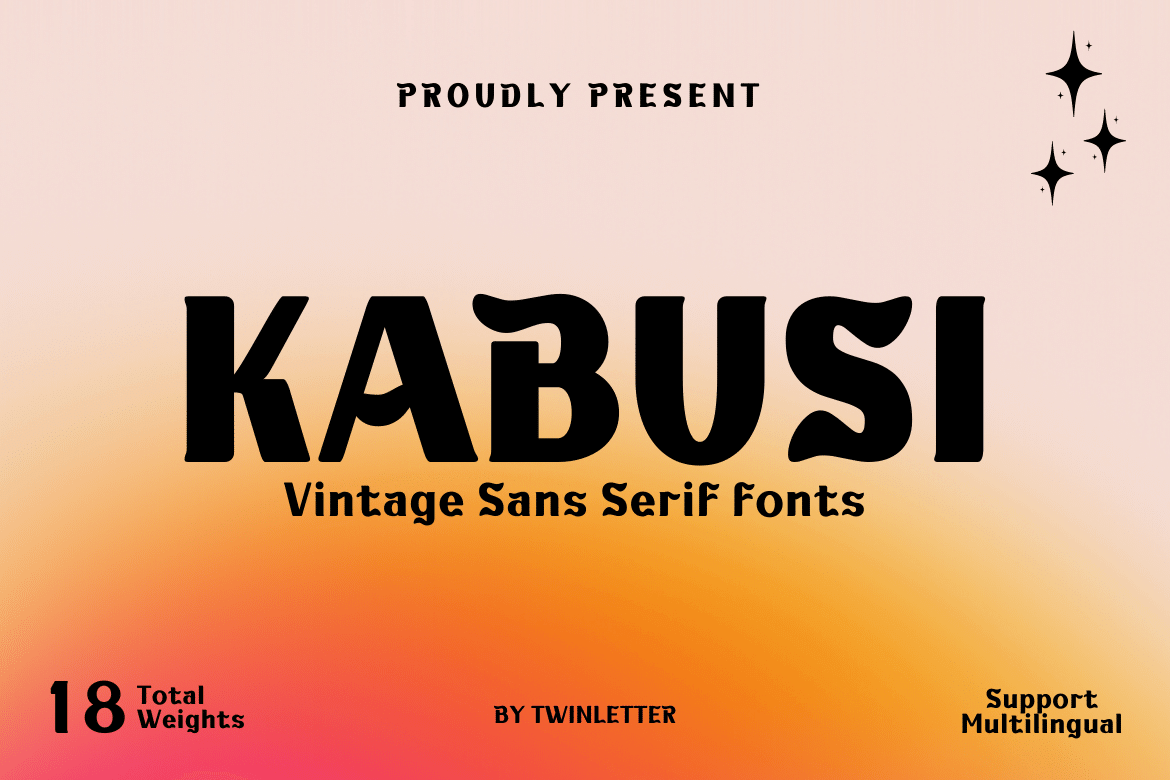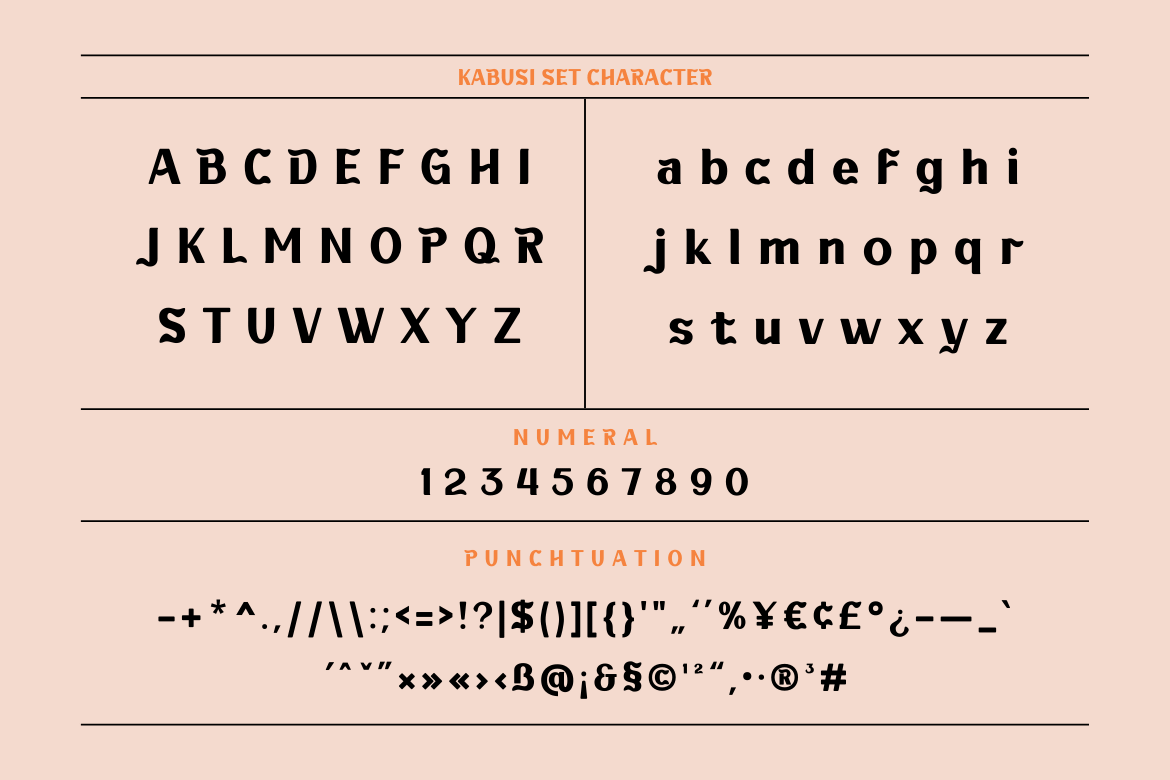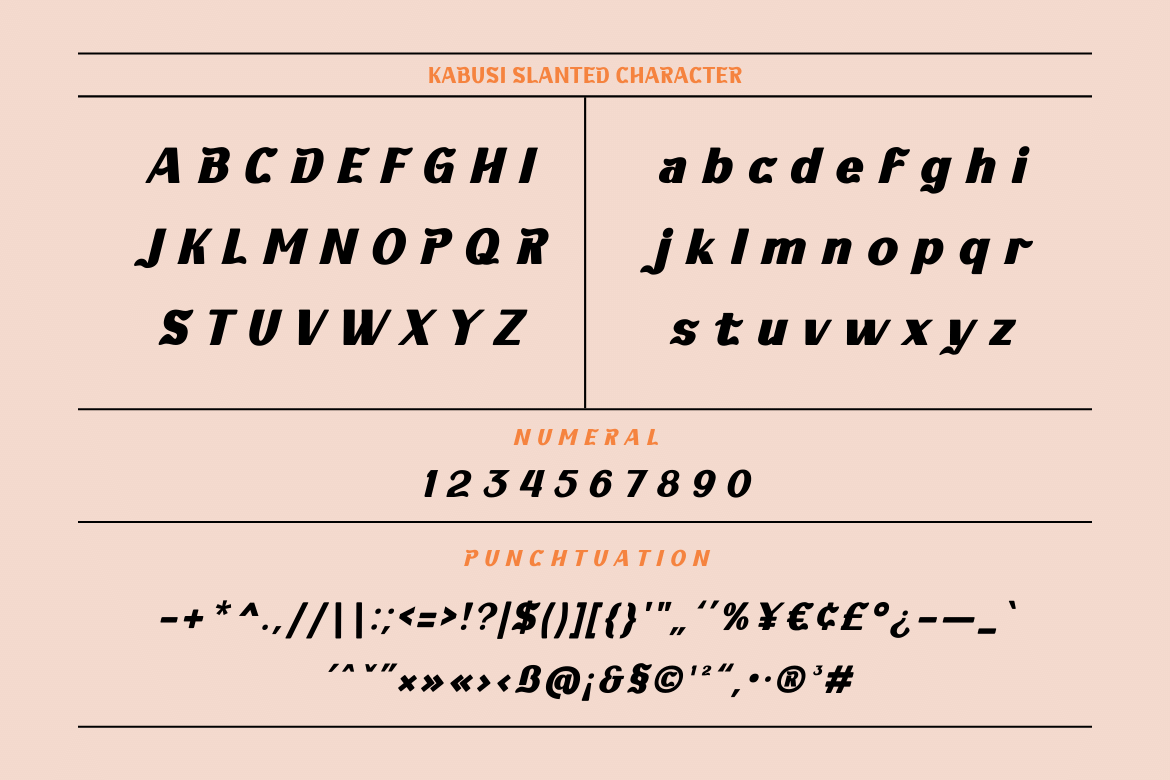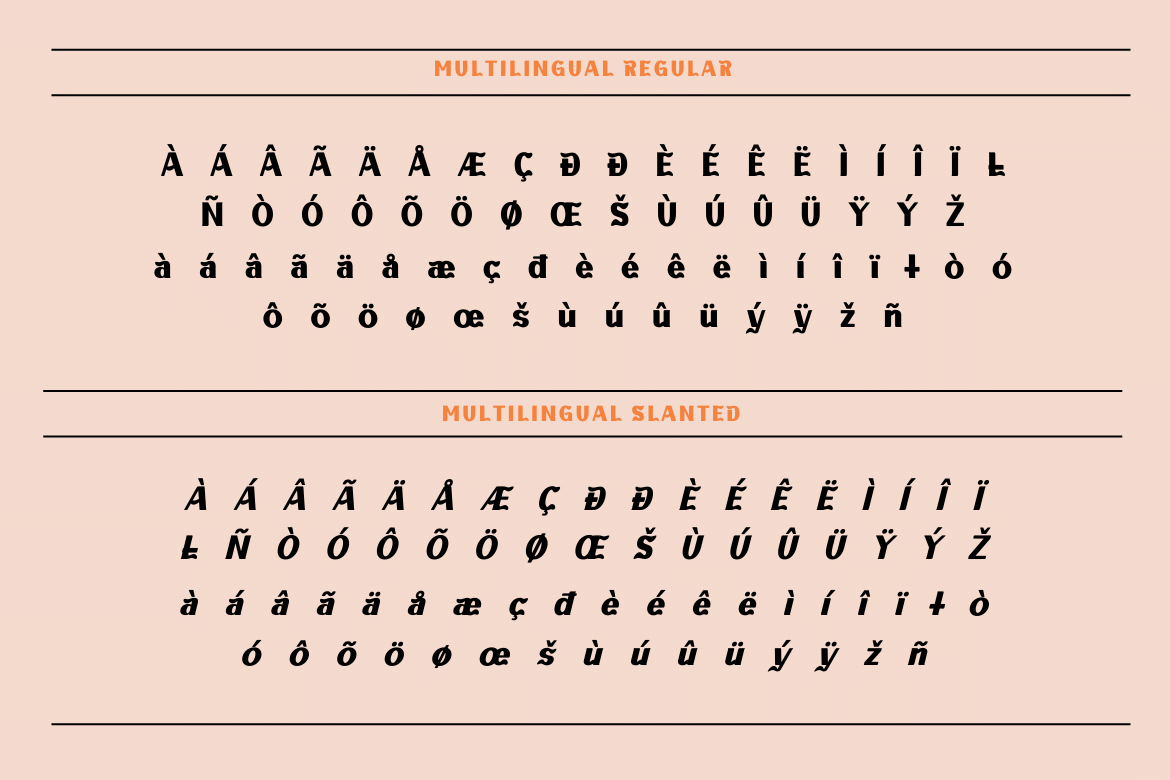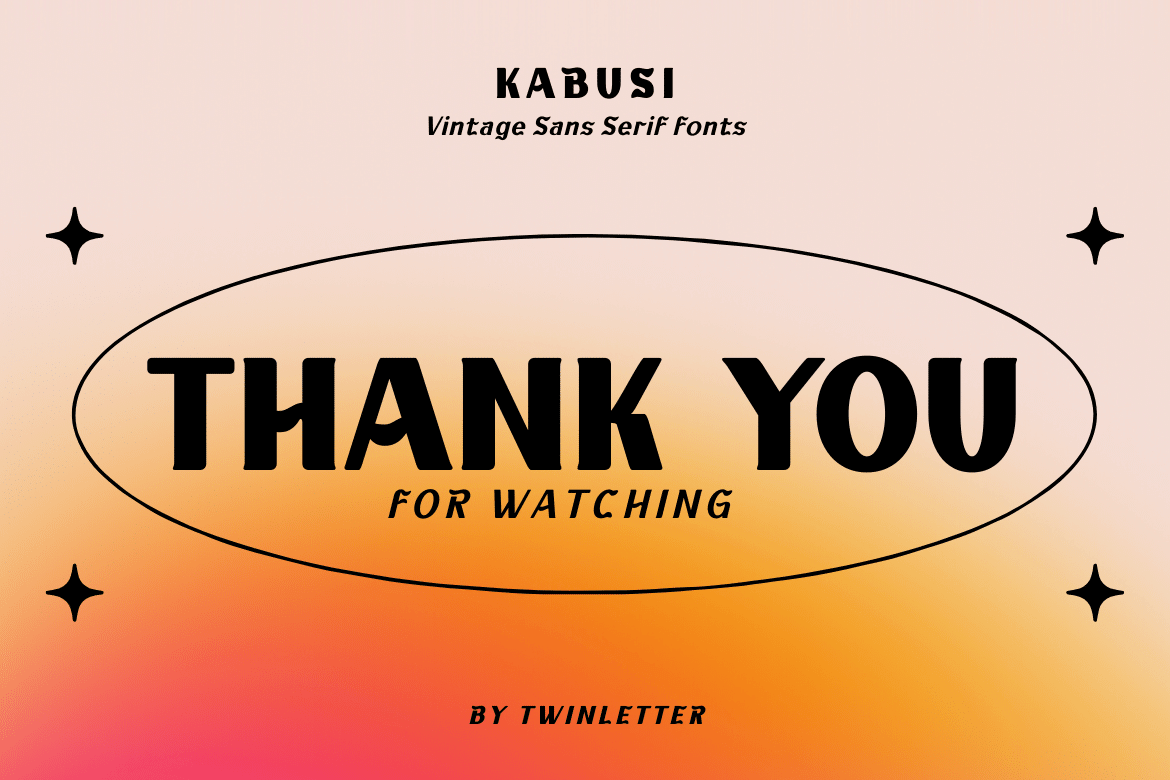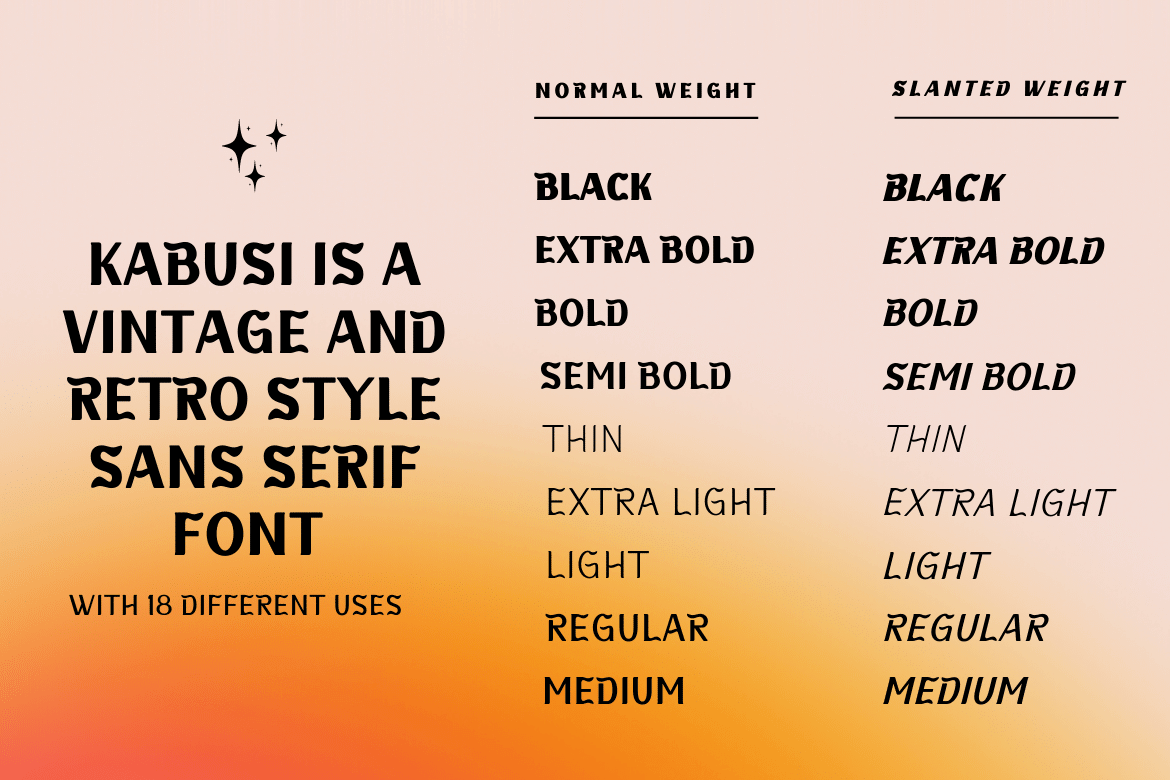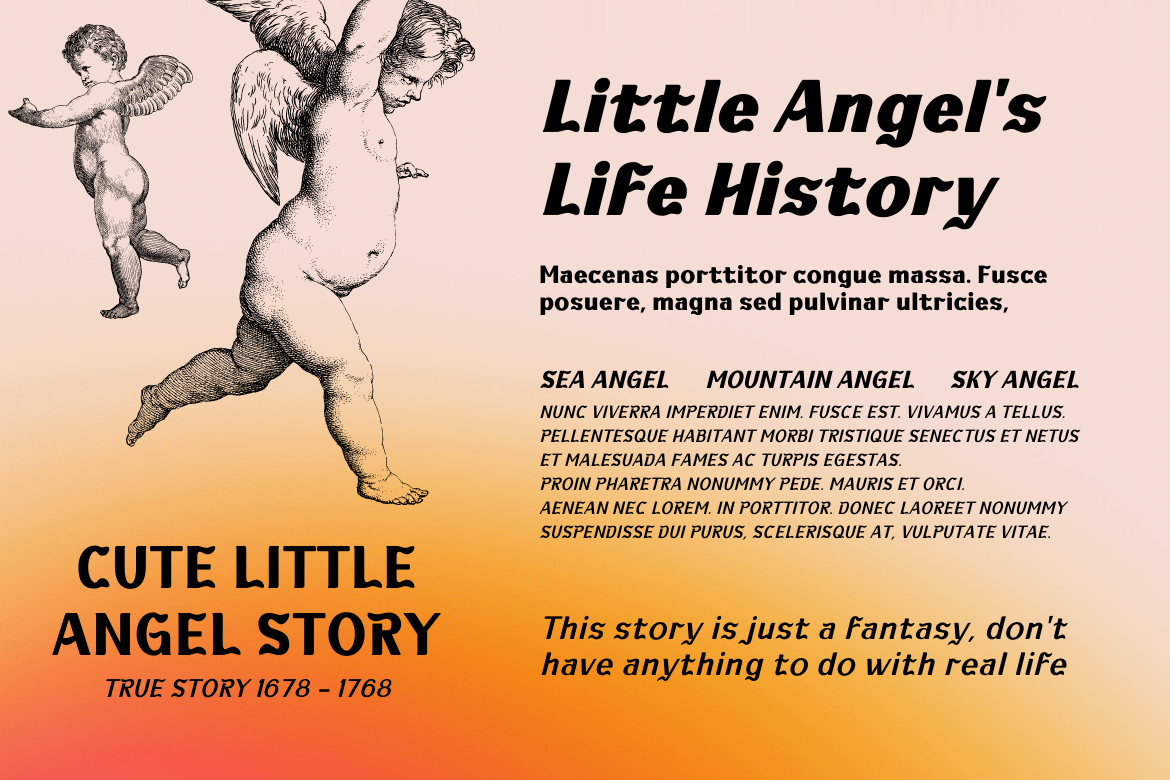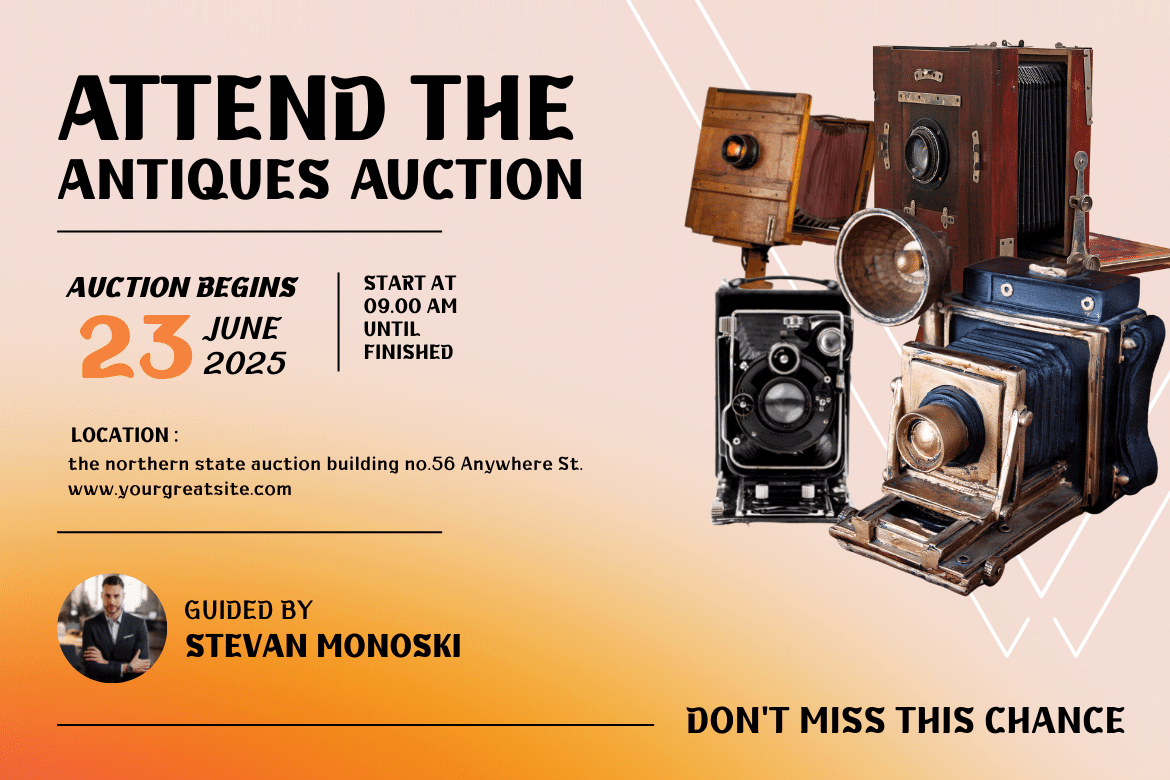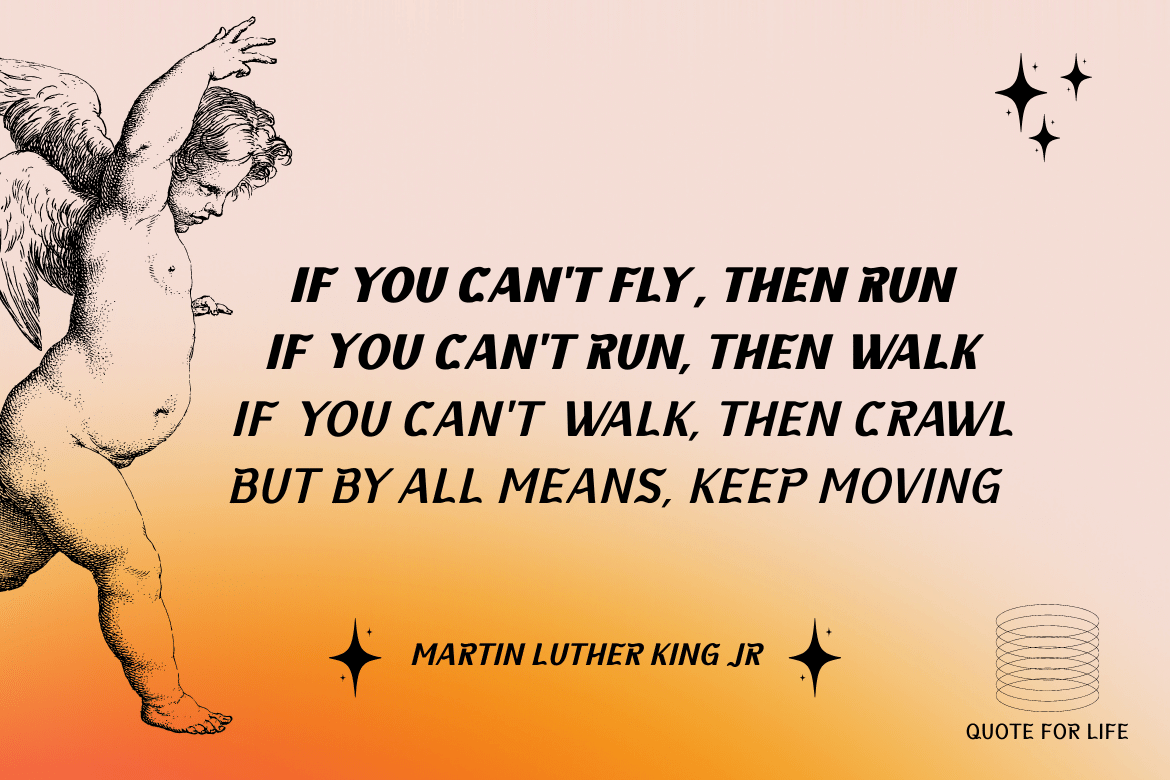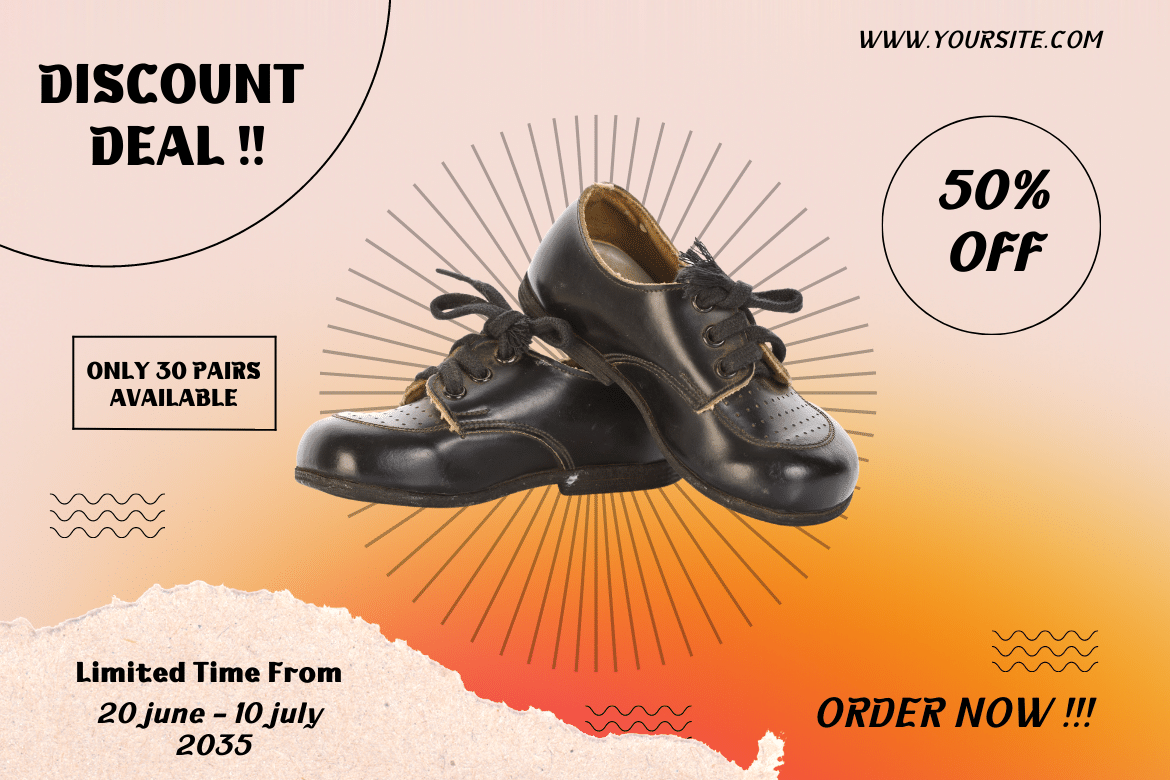
Kabusi
Kabusi San Serif is a premium font family with 18 different styles to choose from. Designed to aid you in the creation of visually stunning projects of all types. It is the most widely used typeface on the internet, in printed materials, and in other design projects. This Kabusi San Serif font embodies both modernity and classicism while remaining simple and clean in appearance. Apart from their great looks, this premium font family will assist you in giving your company a more unique look that will pay off!
• Fonts include multilingual support